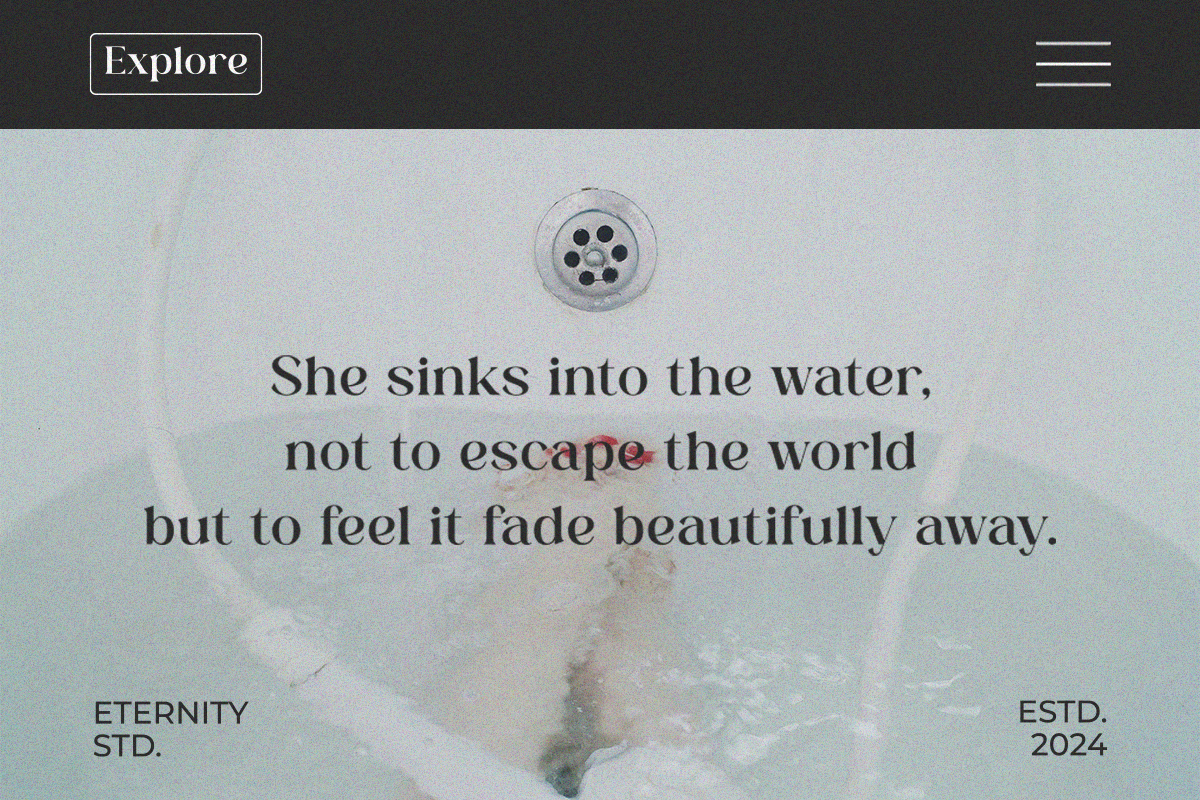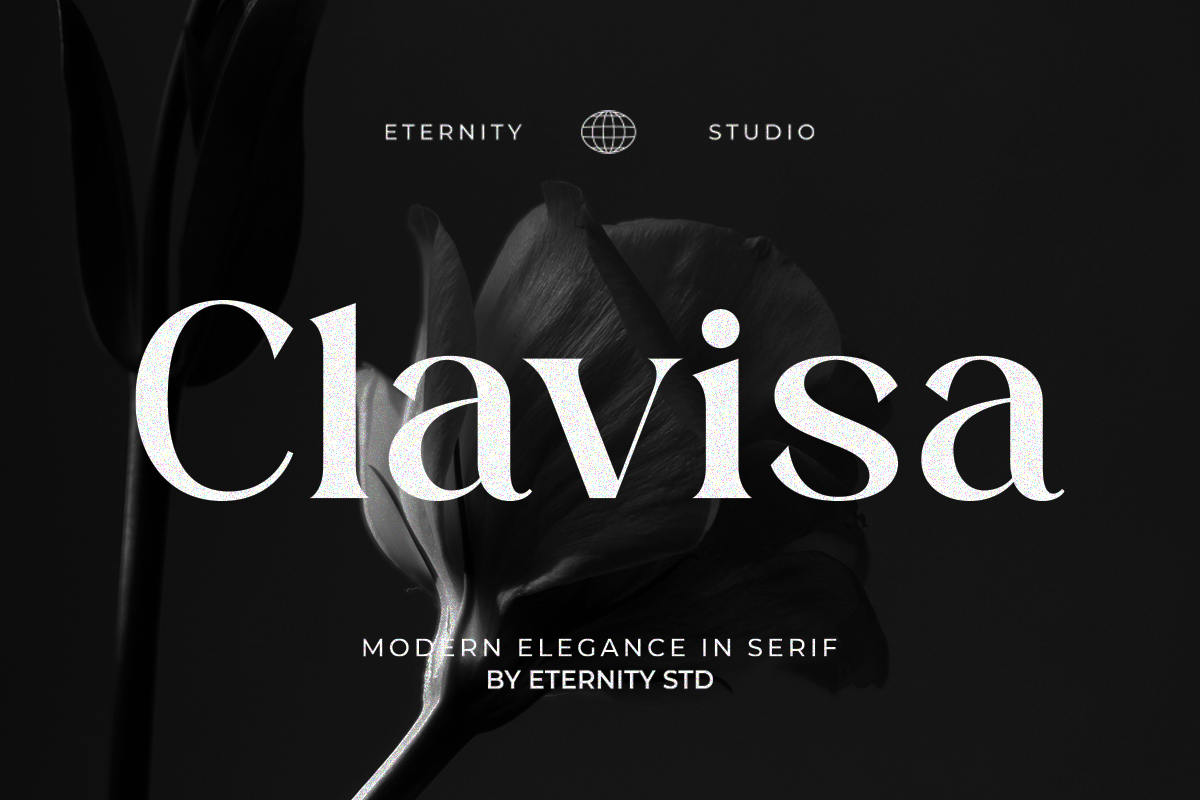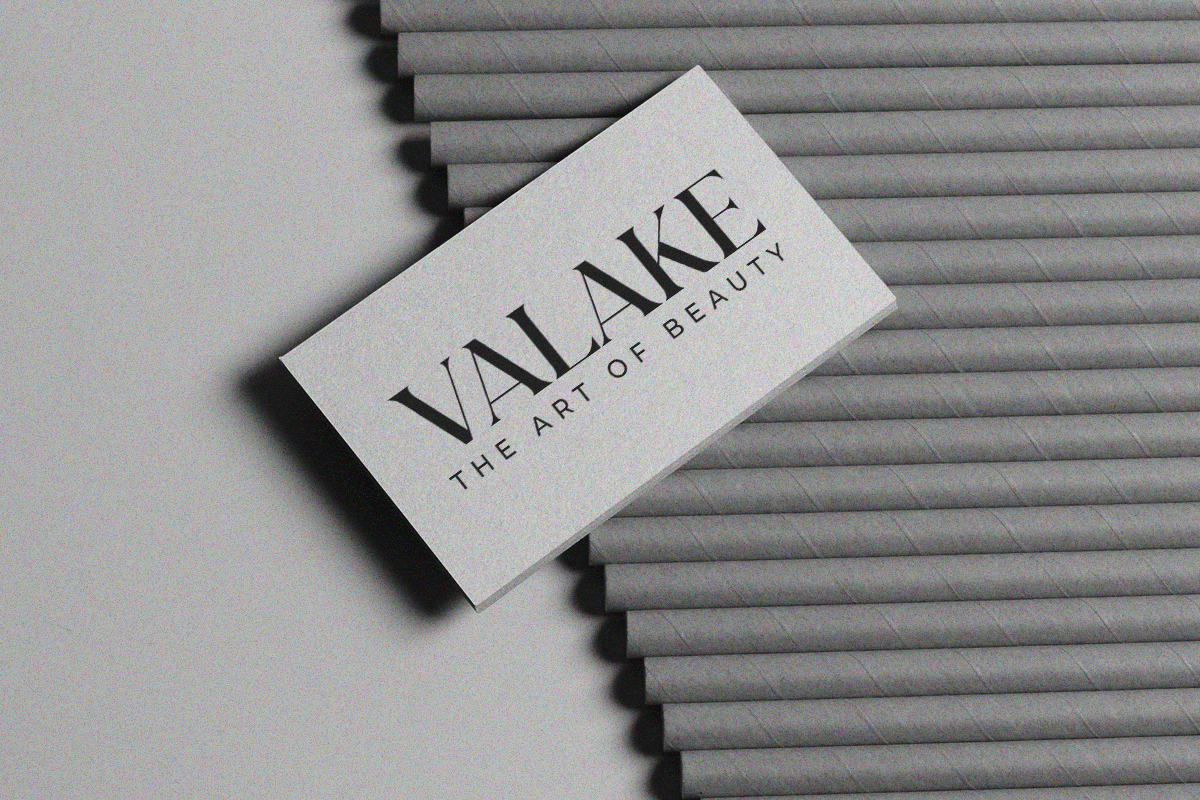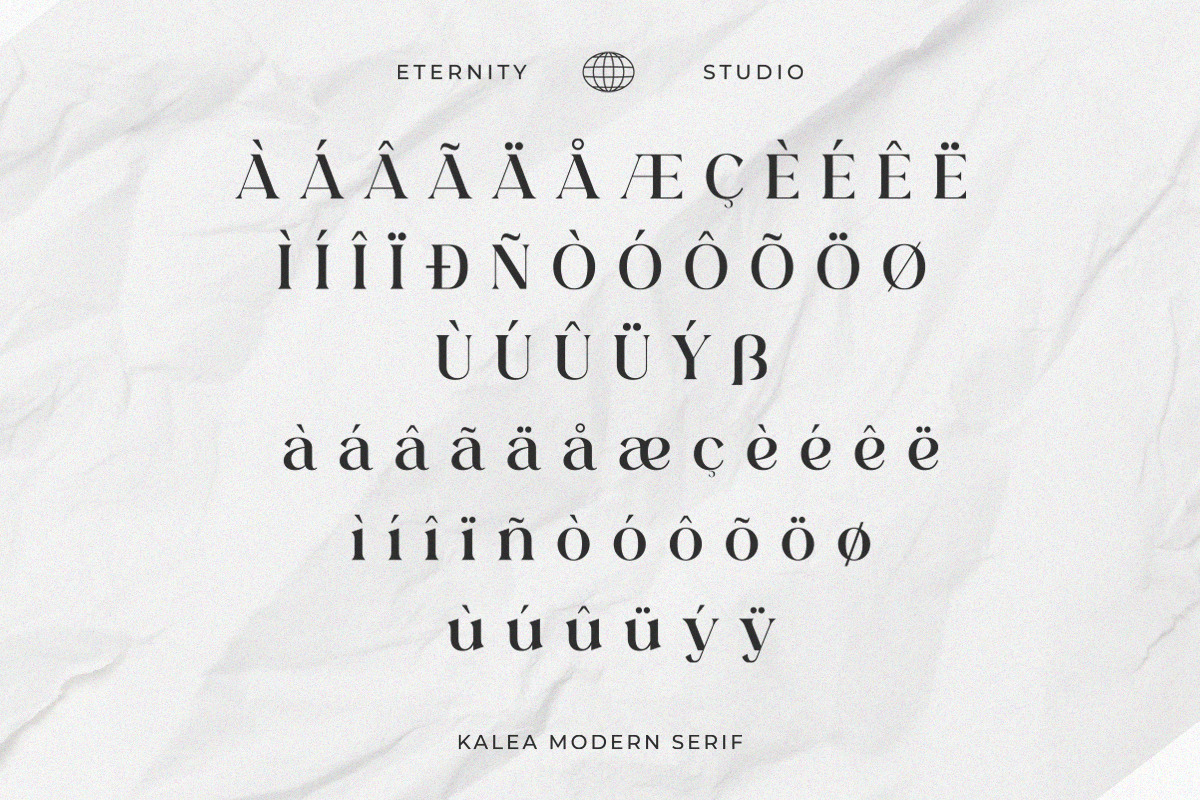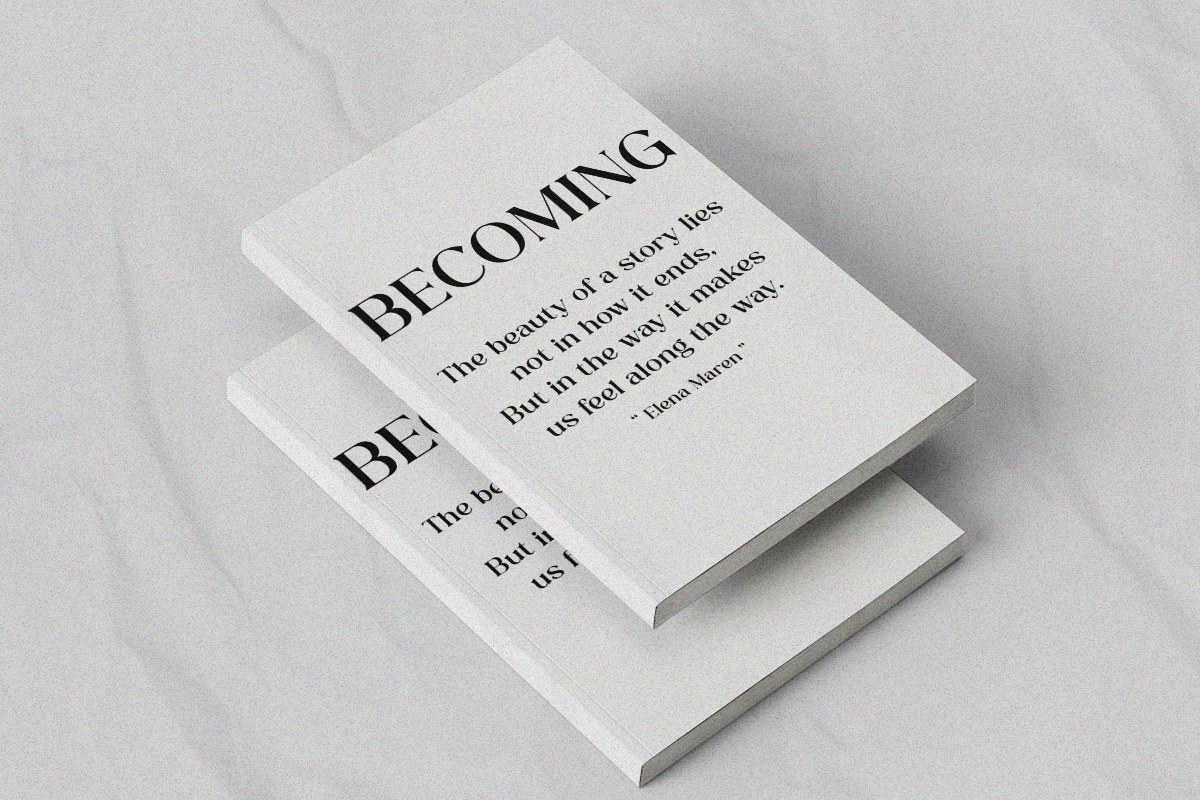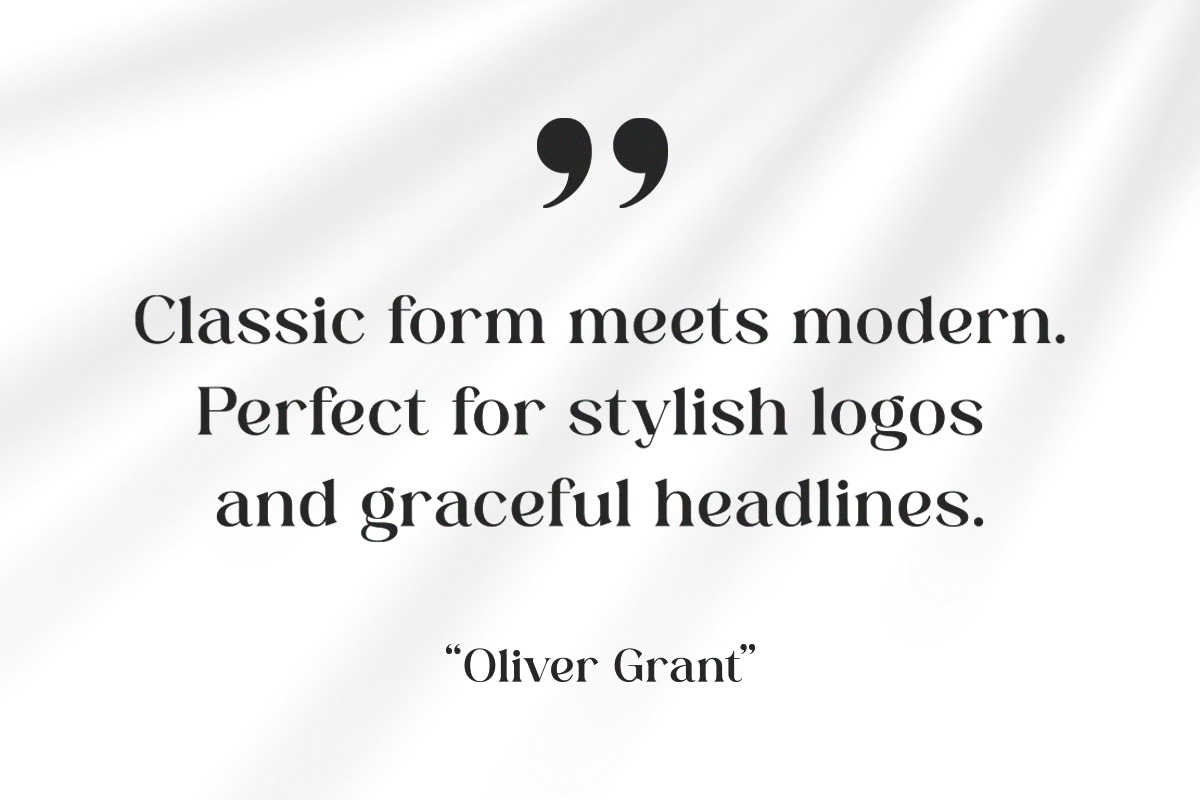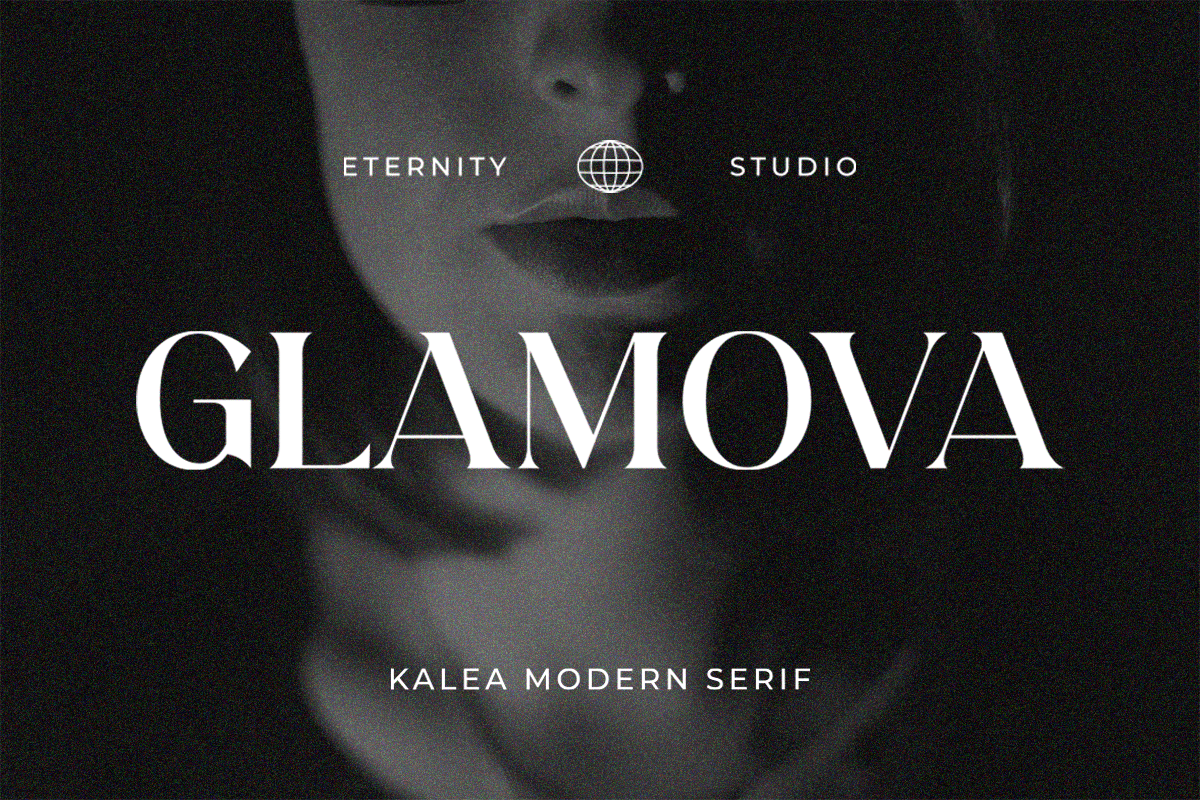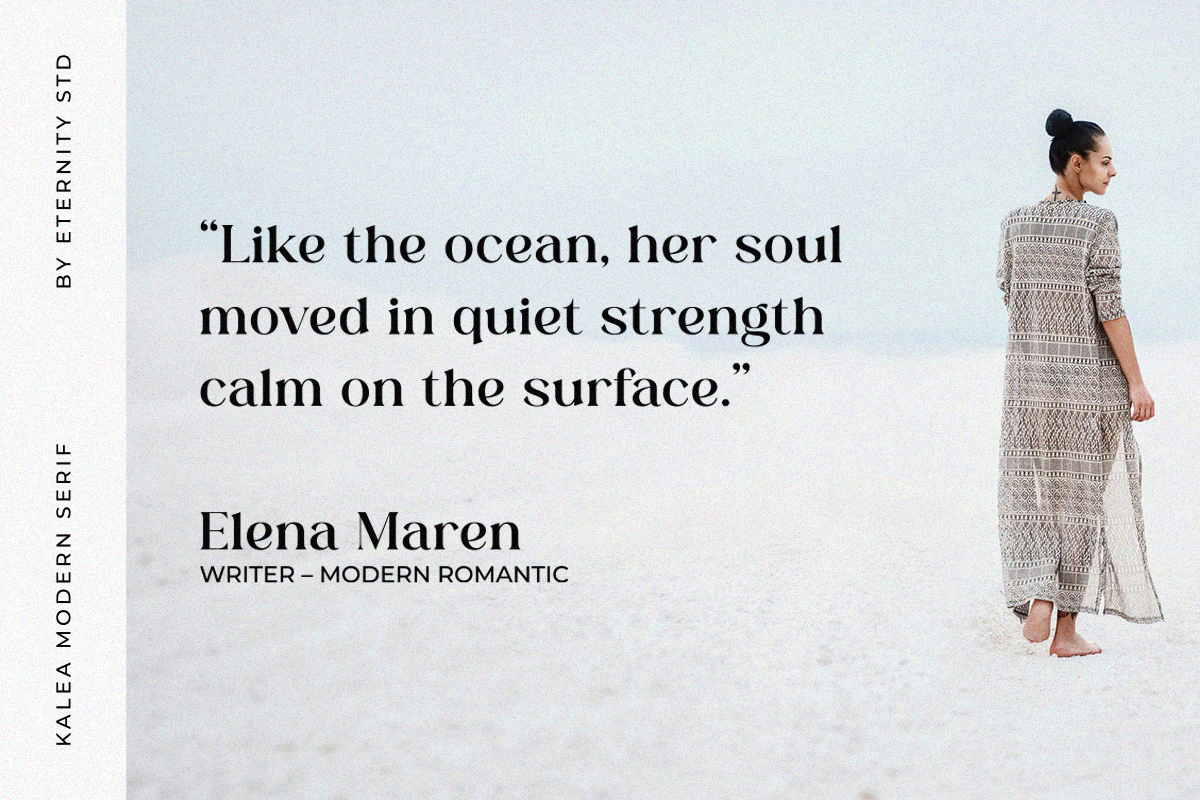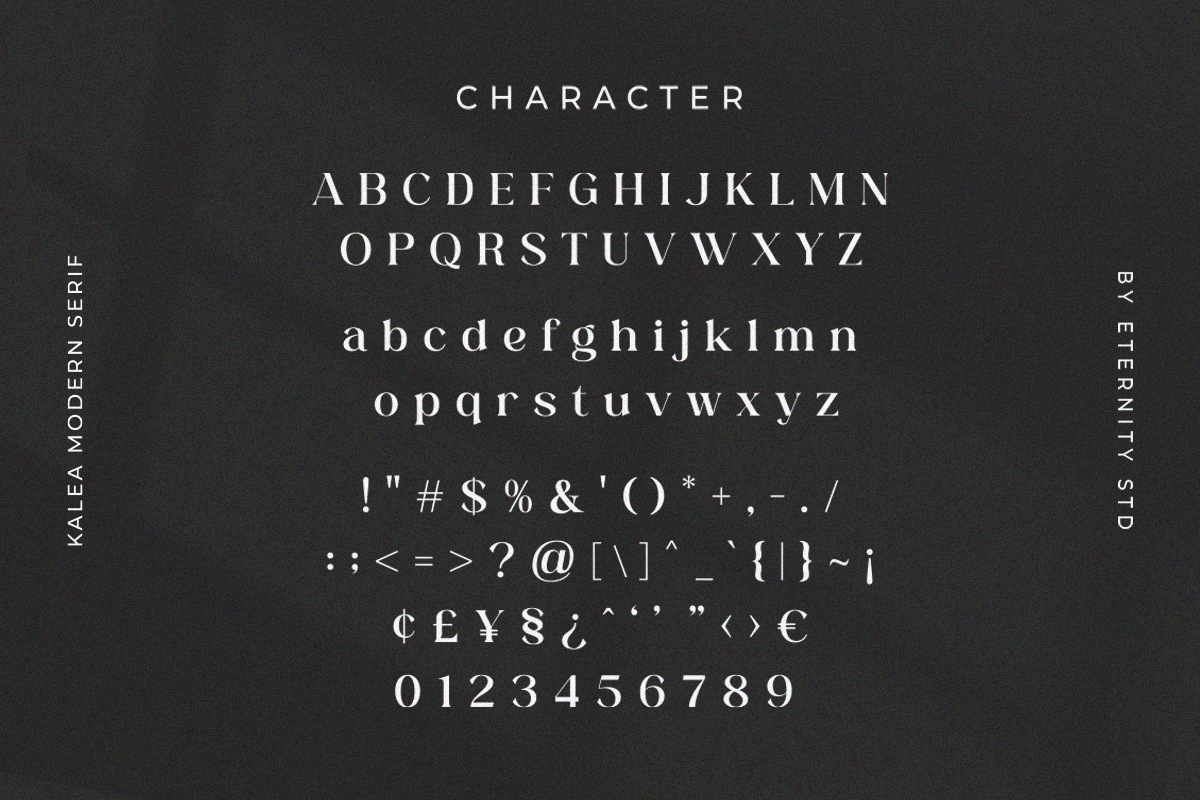
ET Kalea – Modern Elegance Serif
ET Kalea is a Modern Elegance Serif that embodies timeless beauty and sophistication. With its refined strokes and graceful curves, this typeface captures the essence of modern luxury — perfect for designers who value subtle elegance and a polished aesthetic.
Whether you’re crafting fashion branding, editorial layouts, wedding invitations, product packaging, or logo designs, ET Kalea will elevate your work with a high-end, feminine touch.
Each letter was thoughtfully designed to balance style and readability, making it both versatile and captivating for any creative project.
✨ Features
Uppercase & lowercase
Stylish alternates & ligatures
🌷 Perfect For
Branding & Logos
Beauty & Fashion Projects
Invitations & Stationery
Editorial & Magazine Design
Social Media Posts
Let your designs speak elegance — with ET Kalea, where modern sophistication meets timeless charm.